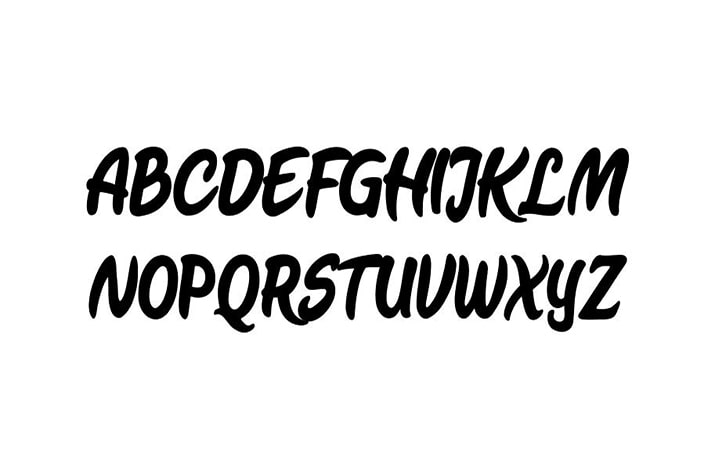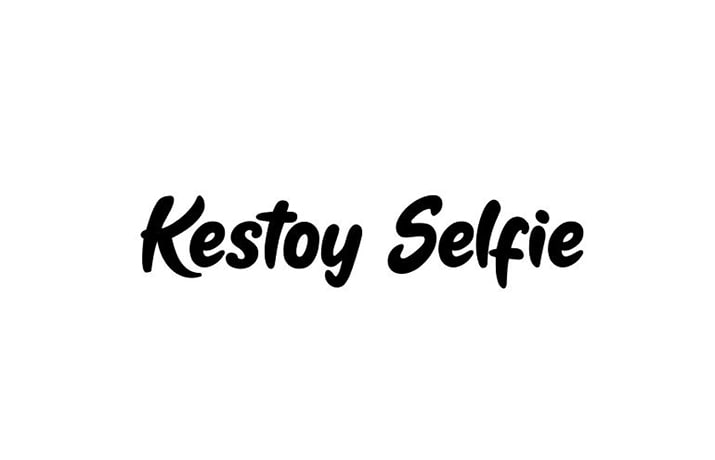
It was firstly released by an Indonesian font designing company the 703 Type on 17 March 2019. And Cundrawan is the primary designer of the font family.
The designer ensures that very clear text forms are provided in its unique style of layout. The user of this typeface will definitely feel an element, it is perfect for any design.
This font family has got great readability and a stylish look. It allows you to create stunning designs quickly and easily.
Font Name: | Kestoy Selfie Font Family |
Style: | Script, Brush, Various |
Font Designer: | Cundrawan |
Due to its bold characters, it can be used for great font designing purposes. Like logo design, short text passage, posters advertising, banner ads, official cards, greeting cards, brochure layout, titling and headlines, printing objects, magazine covers, etc. Moreover, any web developer can use it for web development as well.
Possessing with Truetype format, this font family comes in the regular weight. That font has more than 70 glyphs as well as awesome ligatures and sexy numerals.